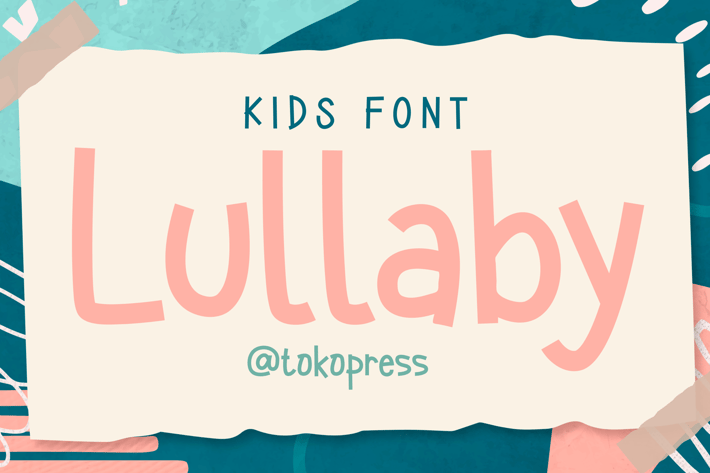
Lullaby - Kids font
Lullaby - Kids Font
Lullaby is a hand-crafted kids display font with a bouncy baseline, smooth curves, and a playful yet calming personality, designed for creatives seeking a long-tail solution for children’s books, learning apps, or daycare branding. The font’s rounded, expressive letterforms offer warmth and character that instantly connect with young audiences. Whether you're designing for preschool brands, bedtime stories, or educational games, Lullaby’s soft structure and low contrast give it a tender, friendly charm while remaining highly legible.
Designed with both fun and clarity in mind, Lullaby is the perfect choice for projects that aim to entertain and educate children. Its gentle rhythm and approachable style make it ideal for storybooks, posters, classroom signs, or mobile learning apps. This font helps you strike the right balance between professional design and kid-friendly energy—creating emotional resonance with parents and educators alike.
Whimsical Style with Purpose
- Perfectly suited for children’s books, toy packaging, educational posters, and creative branding
- Bouncy, soft forms give it a lively feel while keeping readability intact
User-Centered Design
- Ideal for designers needing a versatile, emotionally warm font for childhood-focused projects
- Invites engagement while remaining grounded and clear for young readers
Effortless Versatility
- From nursery rhymes to YouTube thumbnails, Lullaby adapts beautifully across both print and screen